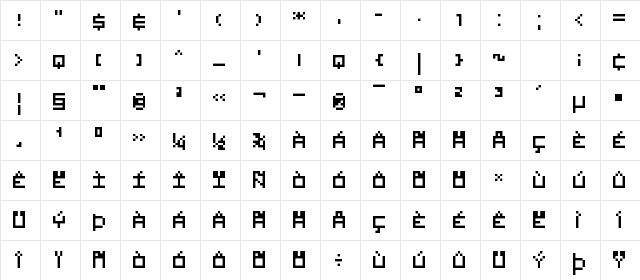
Visitor TT1 BRK Regular Free Font
Visitor TT1 BRK Regular
Foundry: ￿IGMA FONTS
Designer: ￿IGMA FONTS - Brian Kent
Design Context for Visitor TT1 BRK
Visitor TT1 BRK is a composed and adaptable typeface that performs quietly and consistently across a wide range of design contexts.
Who designed the Visitor TT1 BRK Regular font?